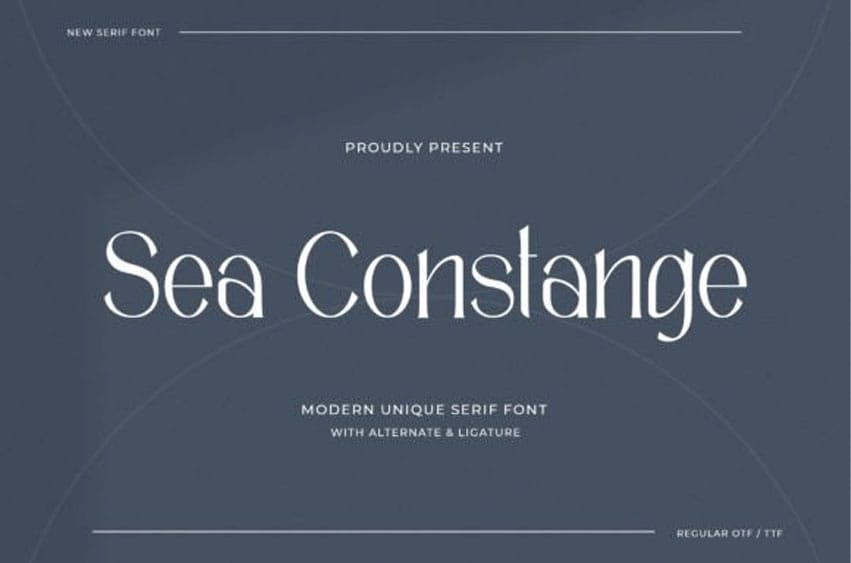
Sea Constange Font is a modern unique sans serif font.
This typeface will be the ideal choice for any cool project or great design you wish to develop.